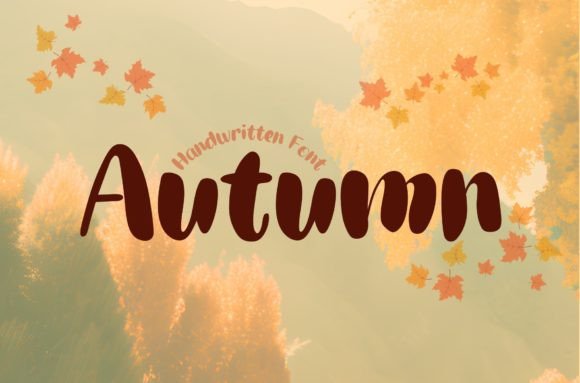
The Magic of Autumn Font: A Designer’s New Best Friend
I’ll never forget the time I was working on a project for a client’s wedding invitation, and I just couldn’t find the right font. I scrolled through page after page of Google results, but nothing seemed quite right. That was until I stumbled upon Autumn Font. It’s a handwritten font that’s perfect for logos, branding, wedding invitations, business cards, greeting cards, posters, magazines, social media, planner prints, and websites. And let me tell you, it’s been a game-changer.
An Honest Review of Autumn Font
- ✨ Versatility: Autumn Font is incredibly versatile. It’s perfect for both digital and print designs, and it’s suitable for a wide range of projects, from children’s designs to more formal applications.
- 💕 Aesthetic: Autumn Font has a warm, inviting feel that’s perfect for creating designs that are both playful and sophisticated.
While Autumn Font is an amazing addition to any design project, there are a few things to keep in mind. 🤔 For example, some users have noted that the font can be a bit tricky to read at very small sizes. ⚠️ Additionally, while the font includes a range of OpenType features, it may not have every single glyph or stylistic alternate that you need.
The Story Behind Autumn Font
Autumn Font was designed with the goal of creating a warm, inviting font that’s perfect for a wide range of design projects. The designer wanted to create a font that would evoke the feeling of a crisp autumn day, with its warm colors and cozy atmosphere. The result is a font that’s both playful and sophisticated, with a unique personality that’s sure to make your designs stand out.
| Is Autumn Font suitable for children’s designs? | Absolutely! Autumn Font has a playful, whimsical feel that’s perfect for children’s designs, such as books, posters, and games. |